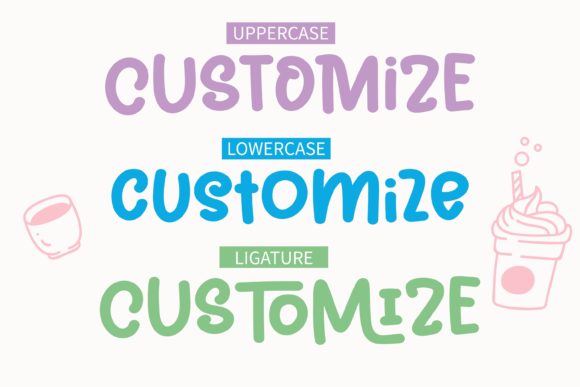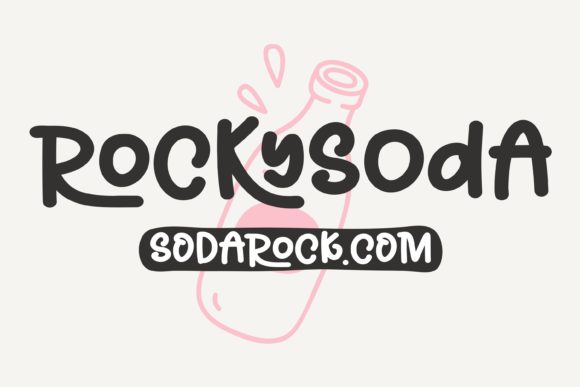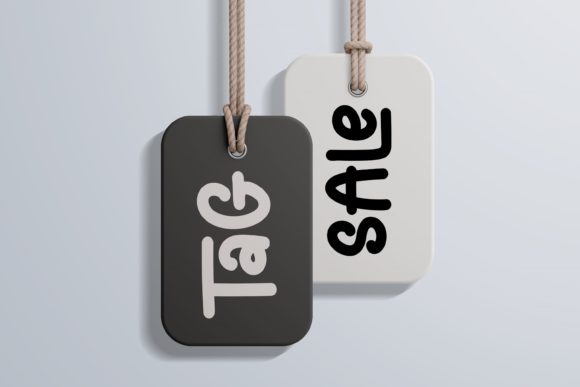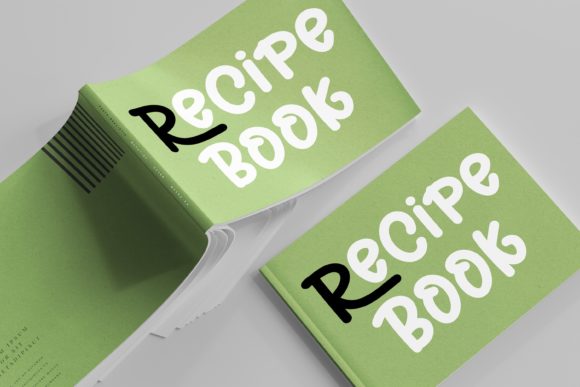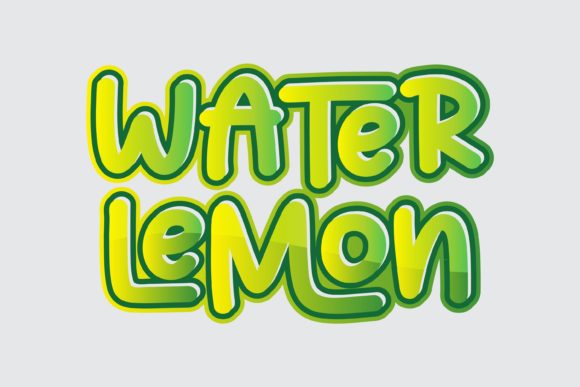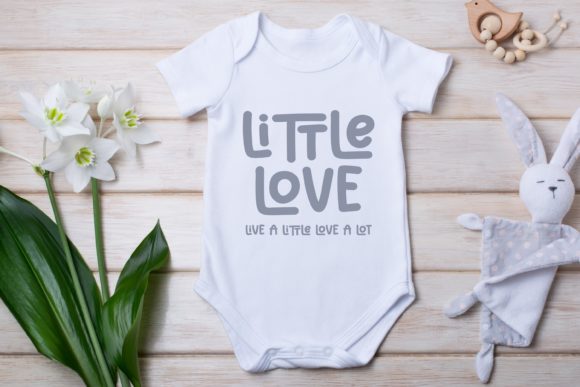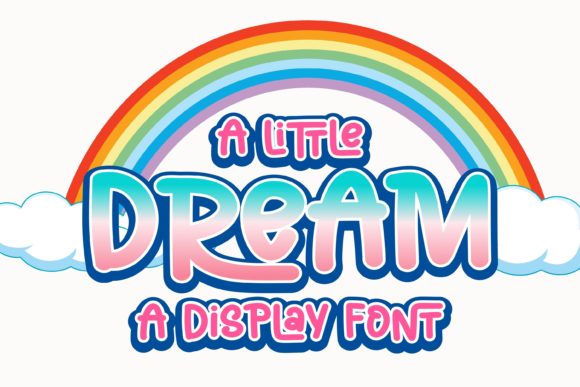
The Magical World of A Little Dream Font
Have you ever been in the middle of a design project, and suddenly, you’re stuck on finding the perfect font? I recall a recent experience where I was working on a children’s activity book, and my client requested a font that was both playful and authentic. After scouring through numerous font libraries, I stumbled upon A Little Dream font, and it instantly became the perfect fit. In this article, we’ll dive into the whimsical world of A Little Dream font and explore its features, usage, and alternatives.
A Personal Review of A Little Dream Font
A Little Dream font has won my heart with its fun, jolly, and incredibly charming display personality. Here are some aspects that I absolutely love:
• ✨ Playful and authentic vibe: This font embodies the perfect blend of playfulness and authenticity, making it an excellent choice for children’s activities, school projects, or any creative endeavor that requires a touch of whimsy.
• ✅ PUA encoded: The font is PUA encoded, which means you can easily access all the glyphs and swashes, giving you endless creative possibilities.
• 💫 Standout designs: A Little Dream font has the power to turn any creative idea into a standout, making your project shine with its unique and charming style.
While A Little Dream font is an excellent choice, there are a few minor quirks to be aware of:
• 🤔 Limited use cases: Due to its playful nature, A Little Dream font might not be the best fit for formal or professional projects that require a more serious tone.
• ⚠️ Glyph compatibility: Some glyphs and swashes might not work seamlessly with all software or platforms, so it’s essential to test them before finalizing your design.
The Backstory of A Little Dream Font
A Little Dream font was created with the intention of capturing the essence of childhood wonder and imagination. The designer aimed to craft a font that would bring a sense of playfulness and authenticity to creative projects. Although the designer’s true identity remains a mystery, their creation has undoubtedly made a significant impact on the design community.
What is A Little Dream font best used for? A Little Dream font is perfect for children’s activities, school projects, or any creative endeavor that requires a playful and authentic touch.
Is A Little Dream font PUA encoded? Yes, A Little Dream font is PUA encoded, making it easy to access glyphs and swashes.